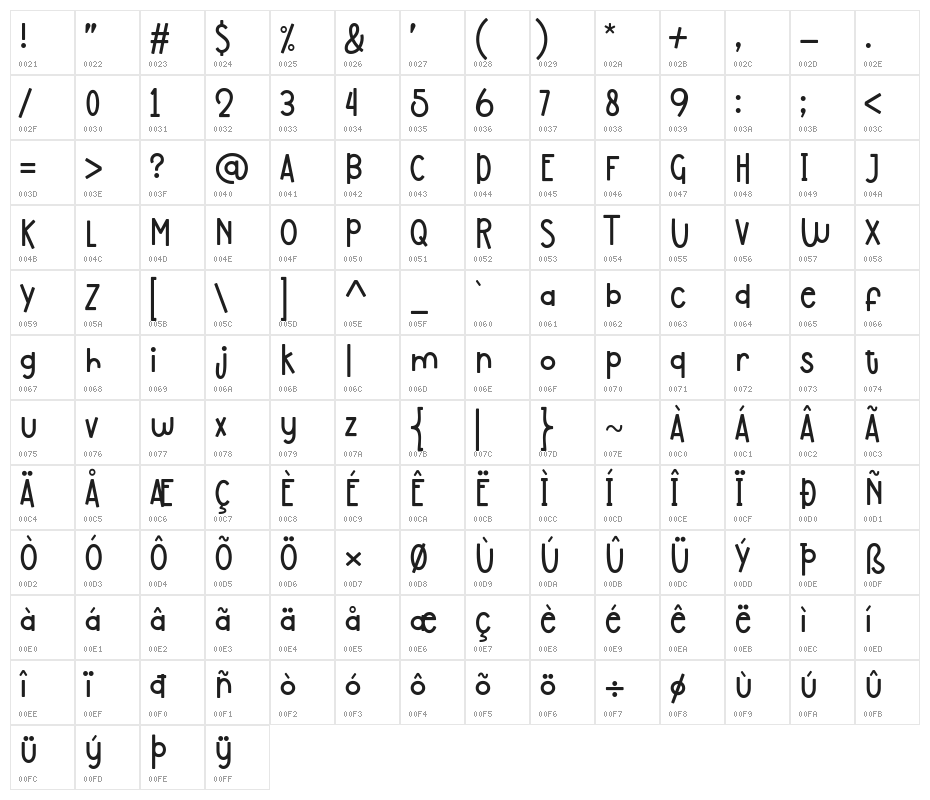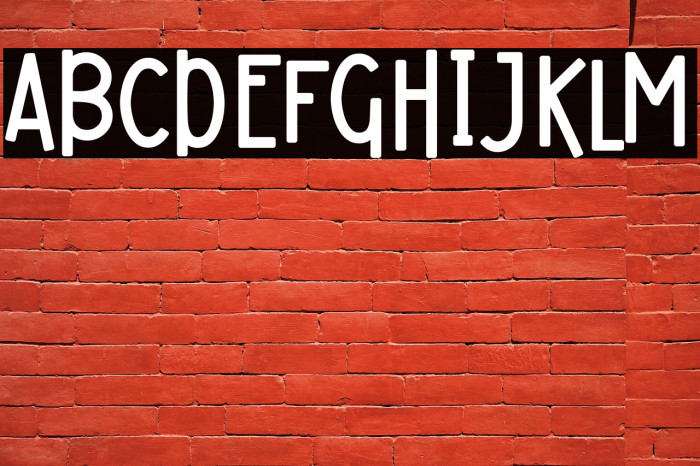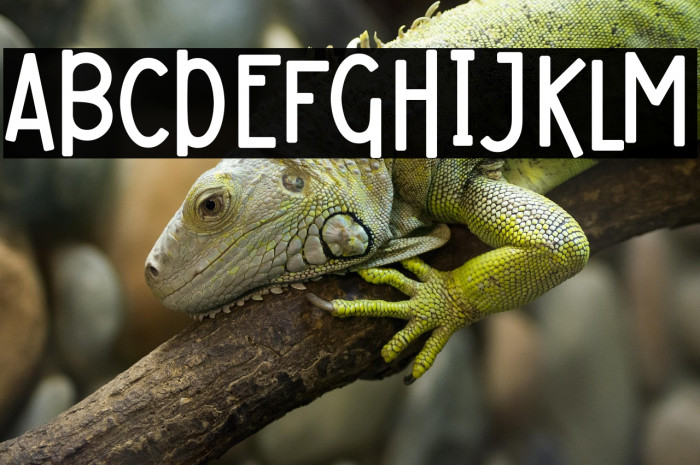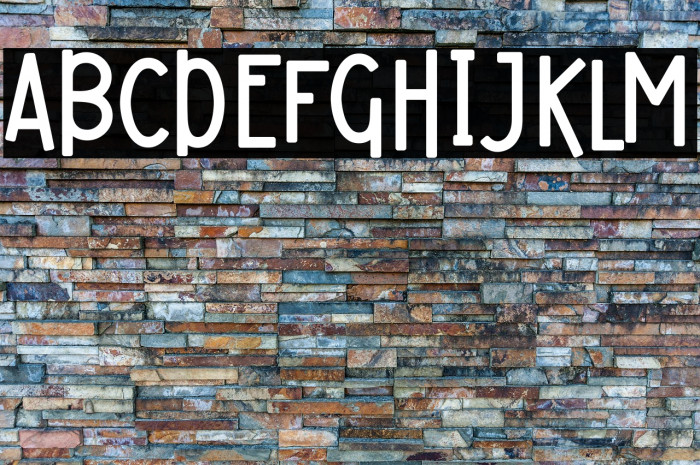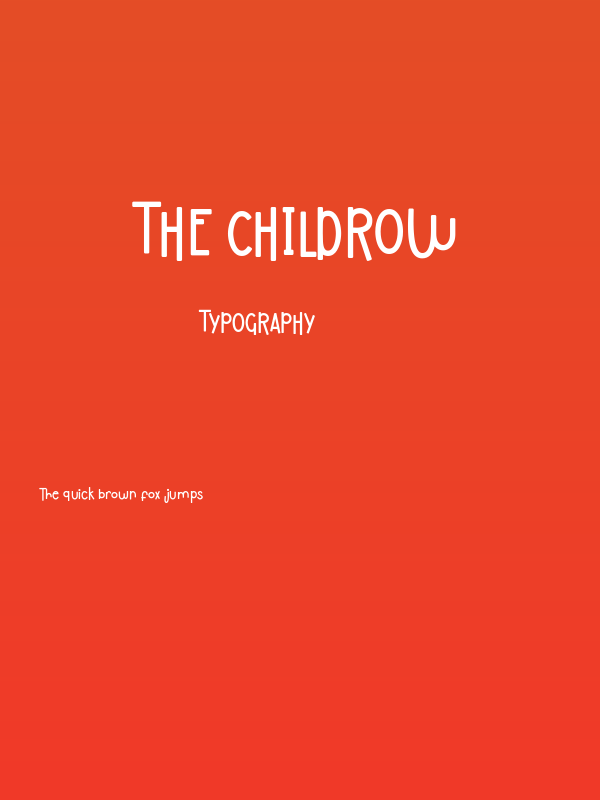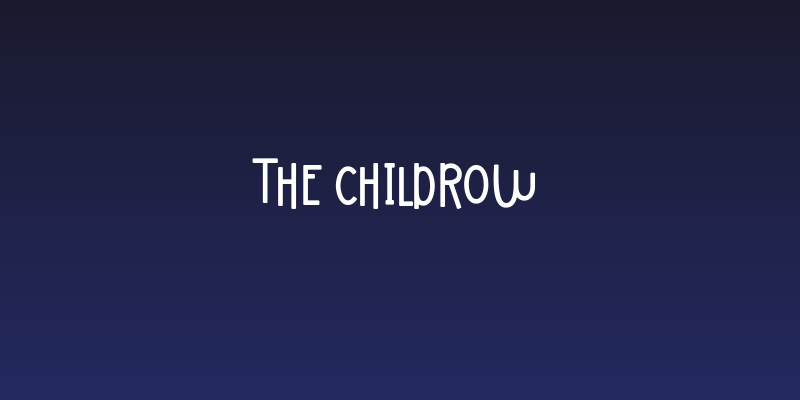
The Childrow Font
The Childrow Description
This playful and rounded font features a friendly and approachable design, characterized by its smooth curves and consistent stroke width. The letters are evenly spaced, providing a clean and organized appearance. The uppercase and lowercase letters maintain a uniform style, with a slight whimsical touch that adds personality. Numbers and special characters are crafted with the same playful aesthetic, making the font versatile for various uses. Its simplicity and charm make it ideal for projects aimed at children or for creating a fun and inviting atmosphere.
| Proposed Projects | Ideal for children's books, educational materials, playful branding, and invitations. |